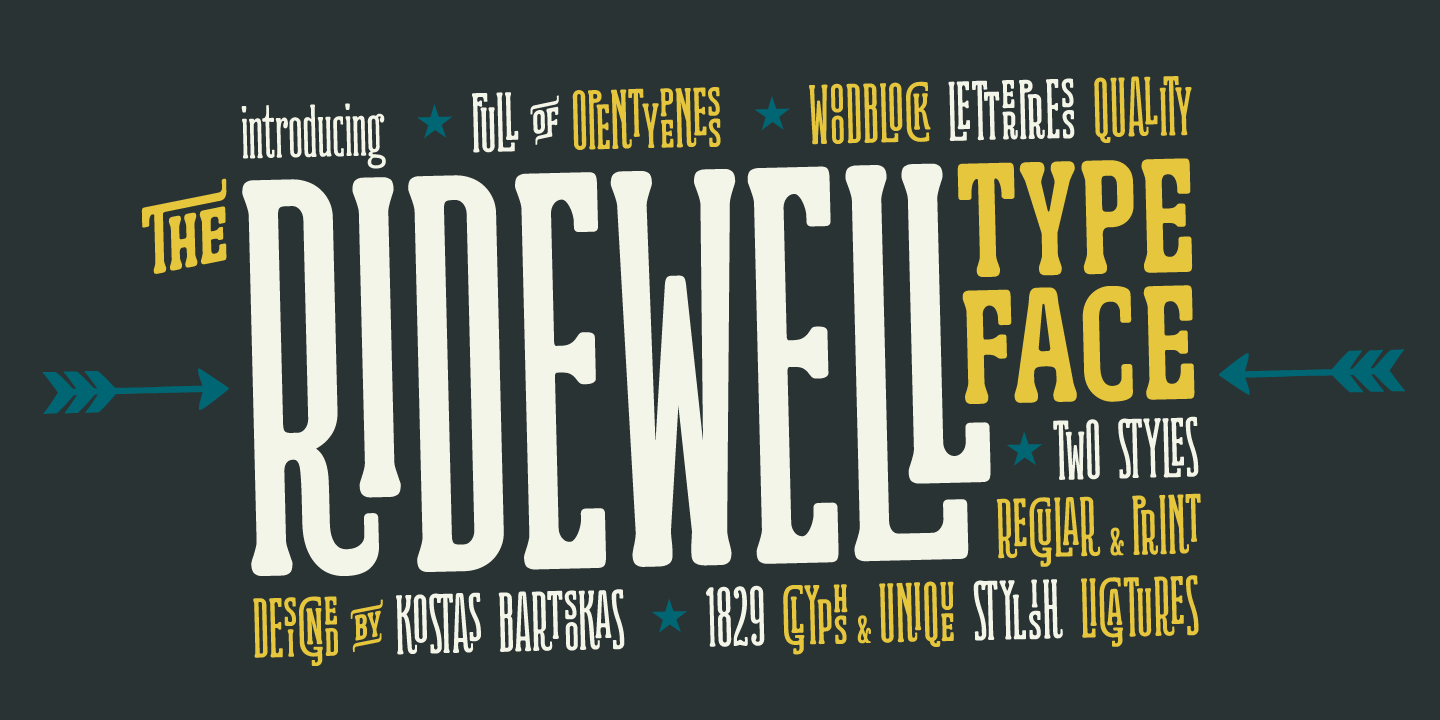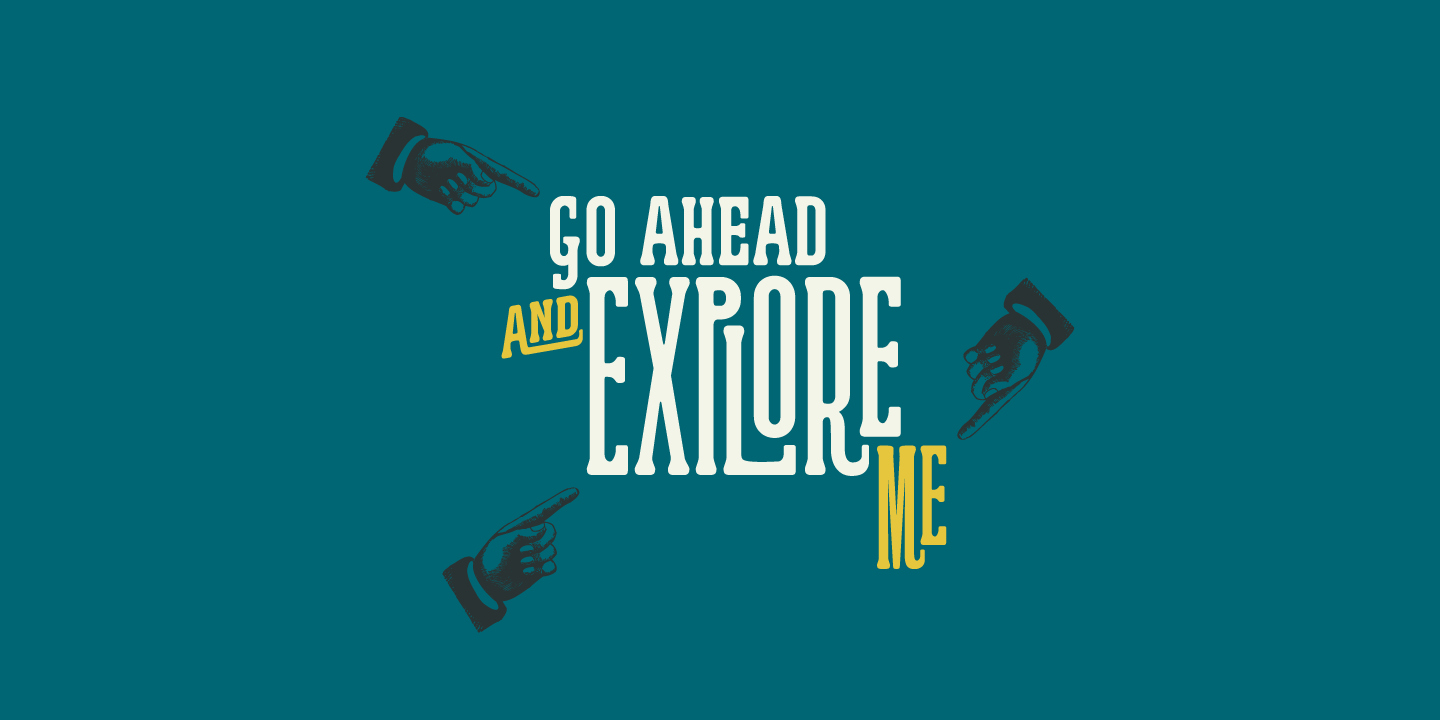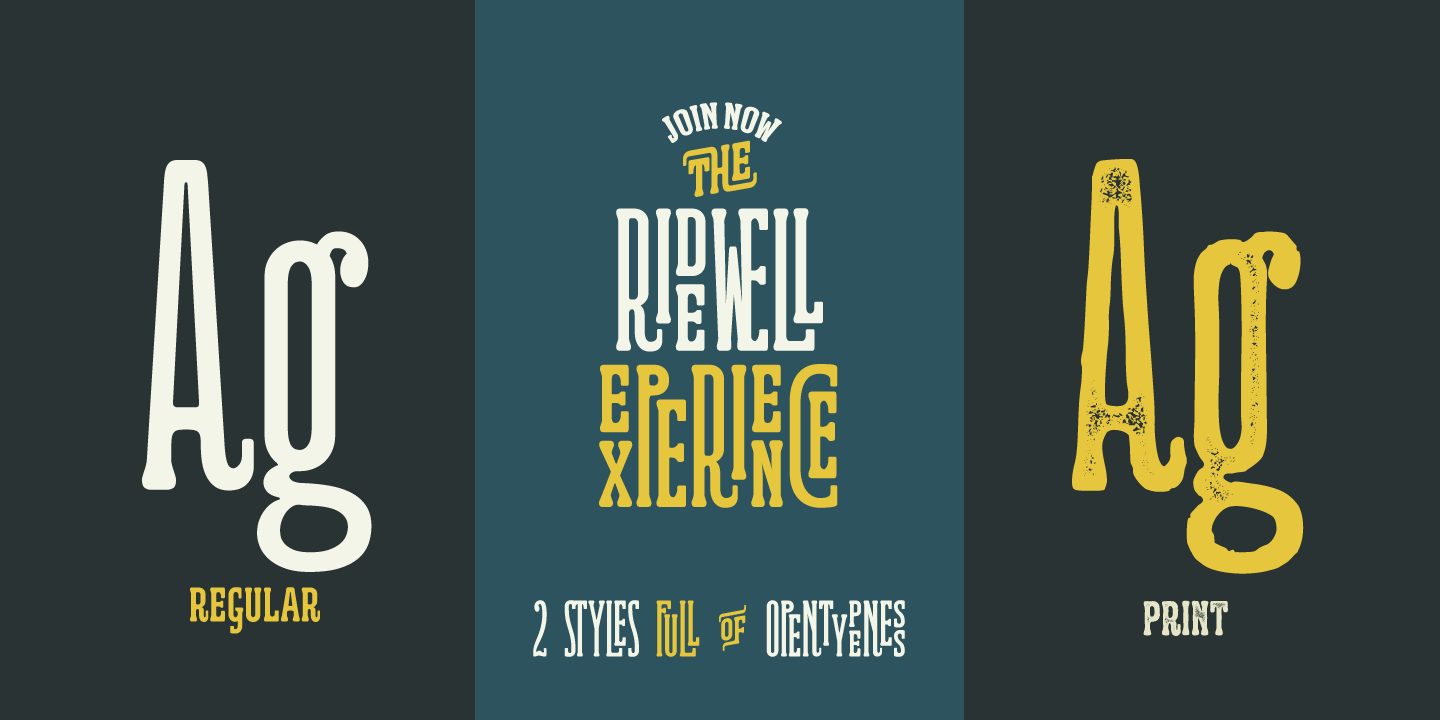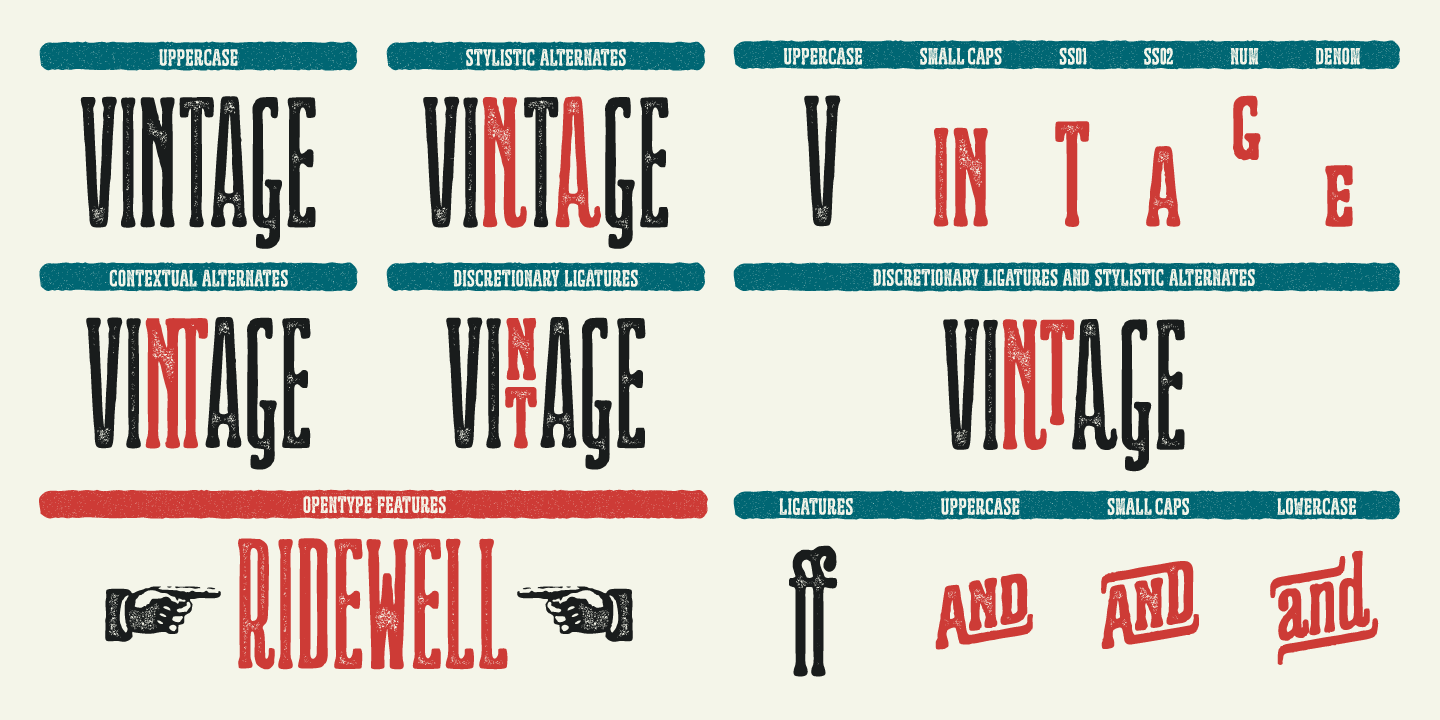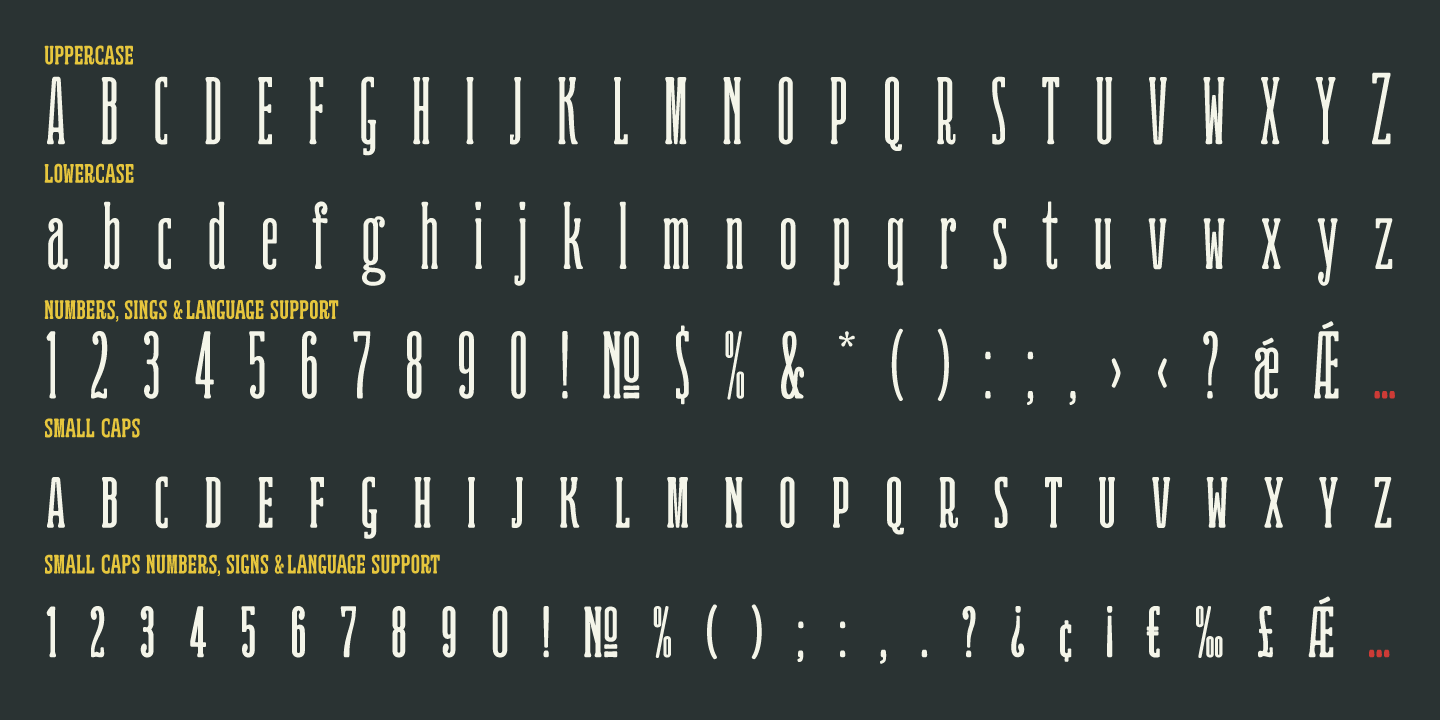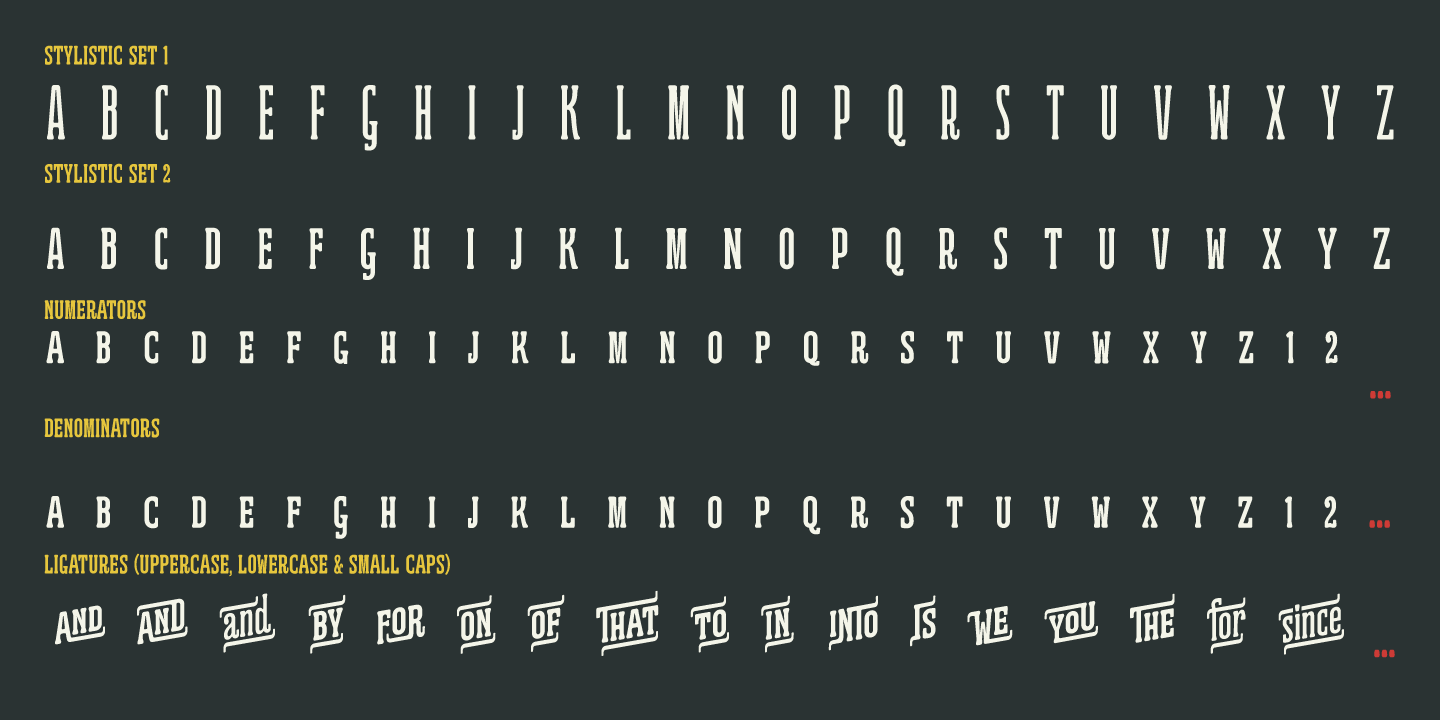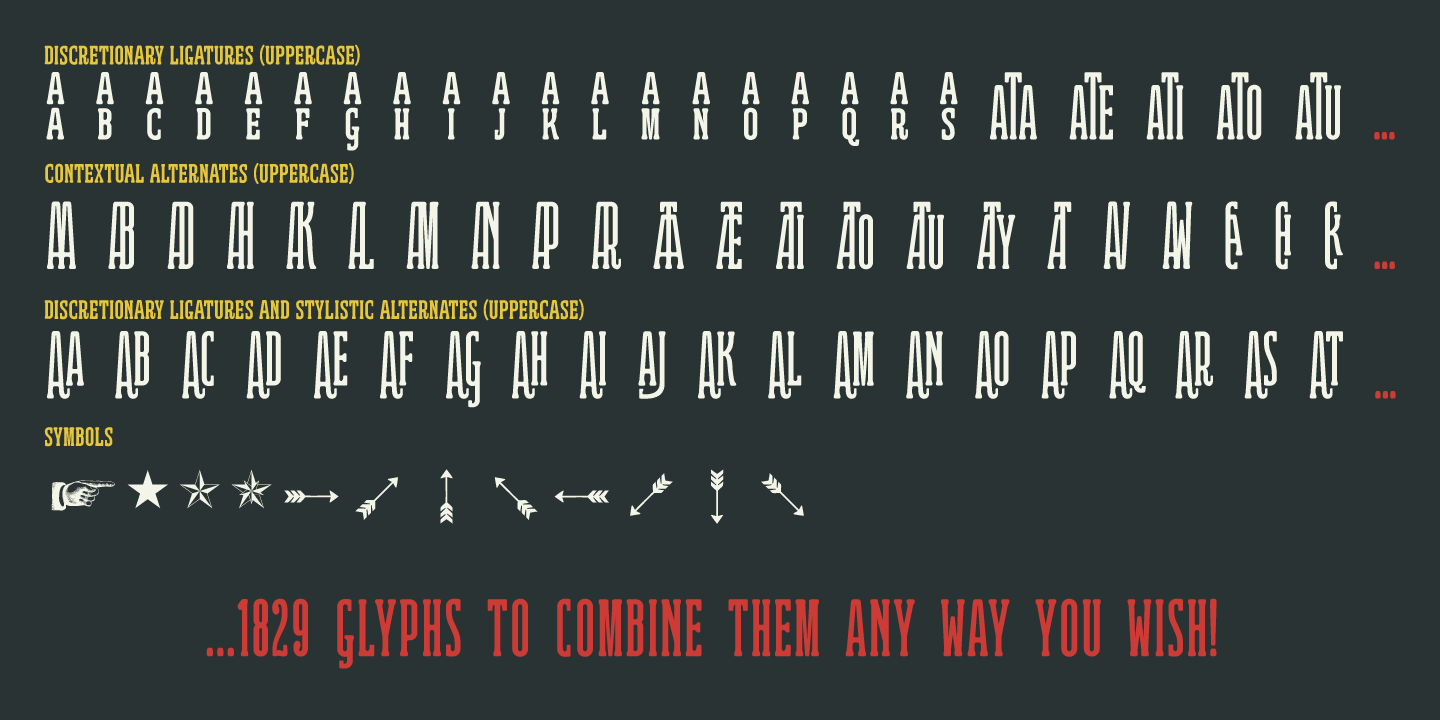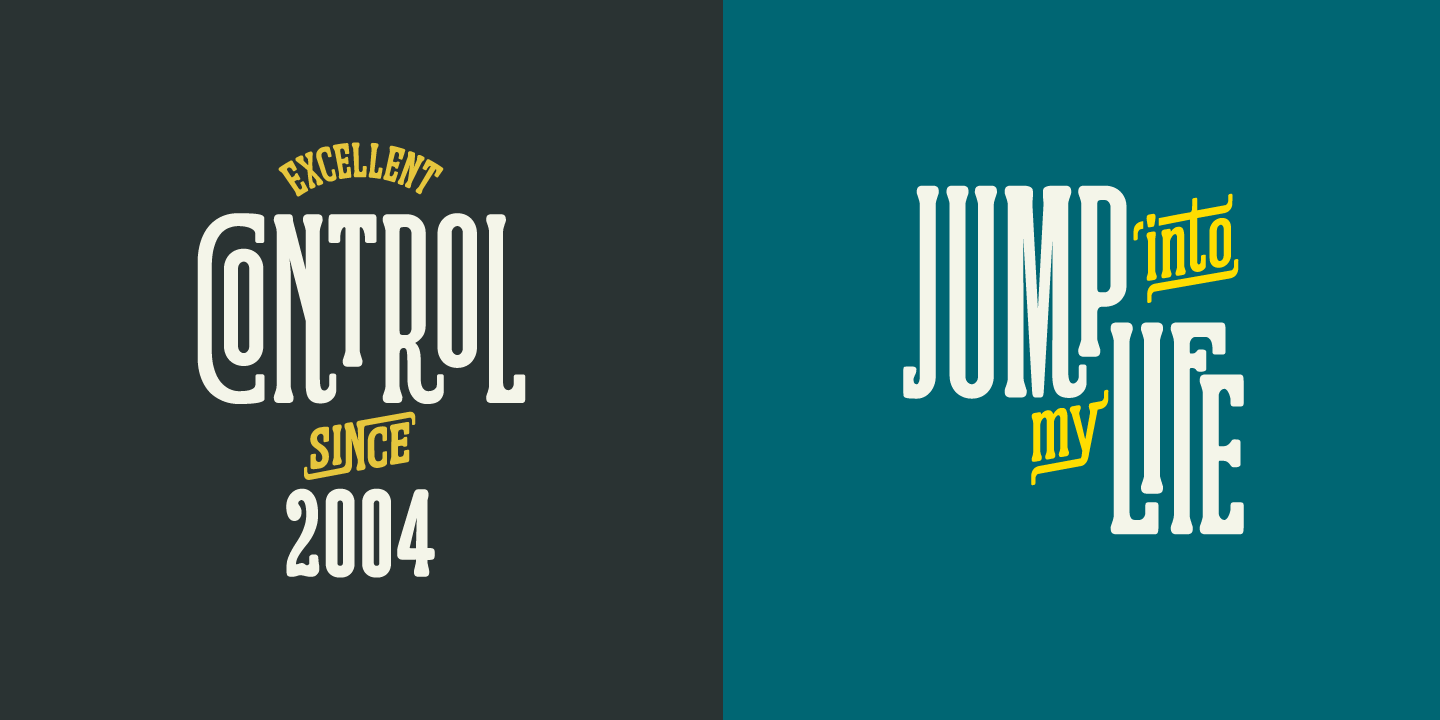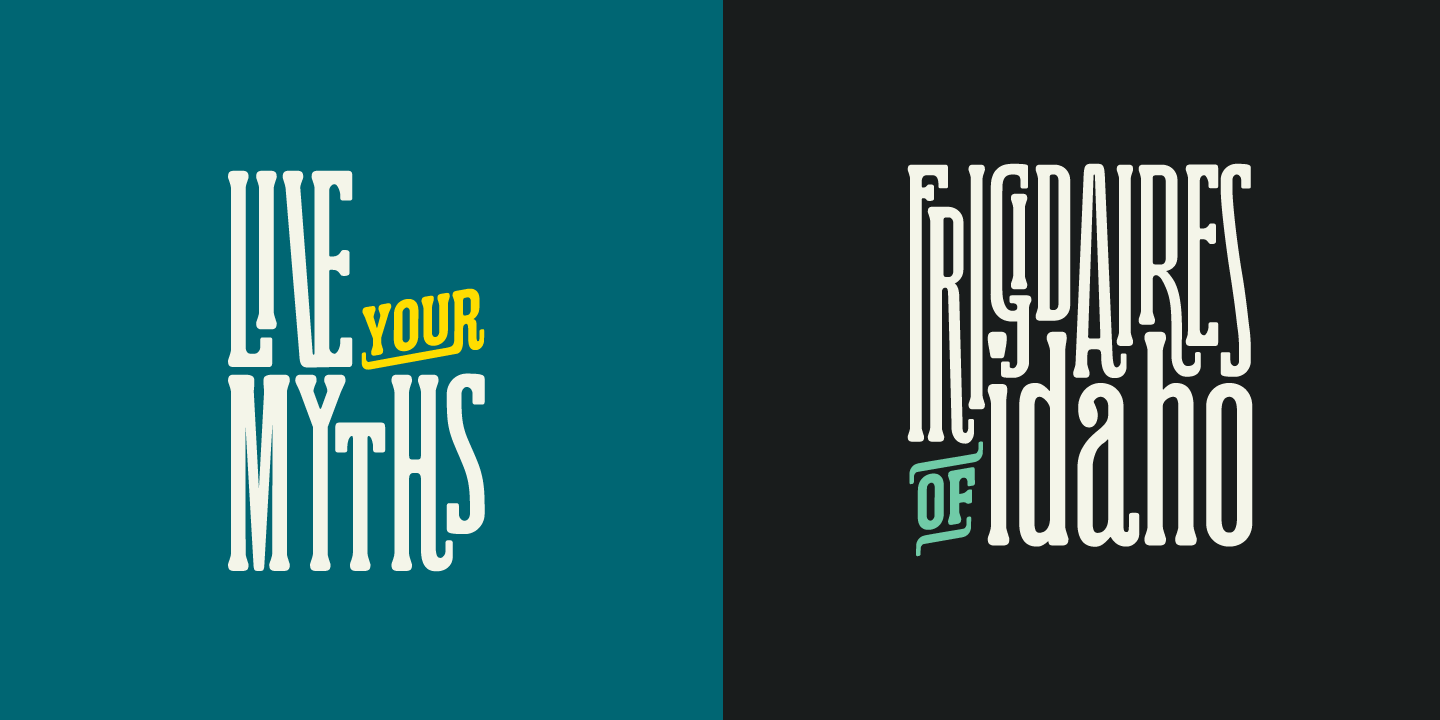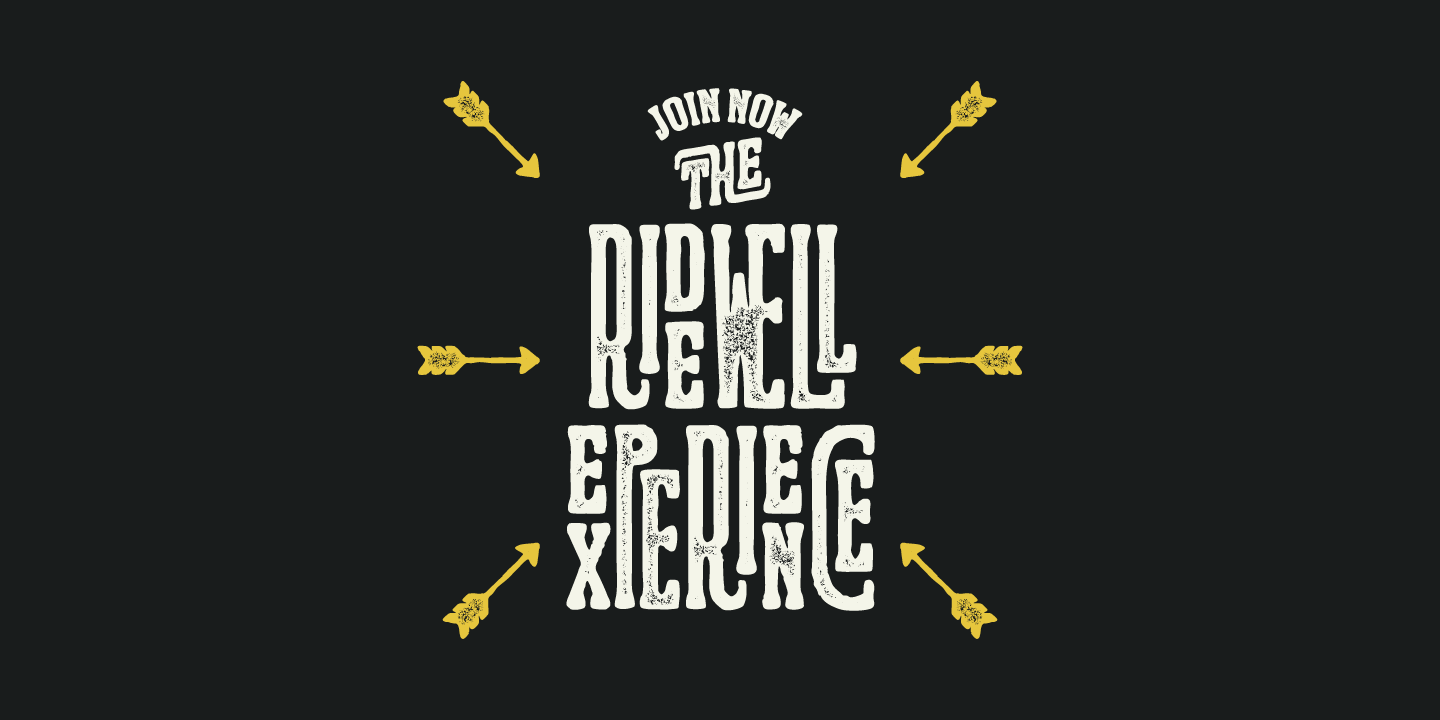
Ridewell
Font Family by Kostas Bartsokas
Ridewell is a wood type inspired typeface filled with amazing opentype features. It has a wonderfully warm and letterpress vintage look and it comes in two styles, a regular and a printed/weathered version.
Both styles feature a full uppercase and lowercase set but also a variety of opentype goodies that make Ridewell unique and expand each style into a huge superset. With over 1800 glyphs per style you can take full advantage of stylistic alternates (titling alternates in Adobe InDesign), contextual alternates, discretionary ligatures, numerators, denominators and much more to create your own designs. The combinations are just endless.